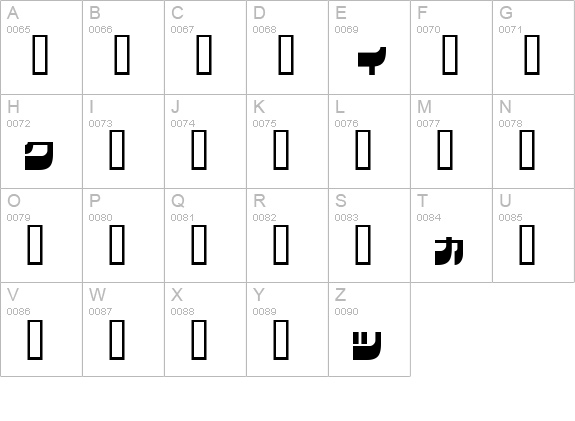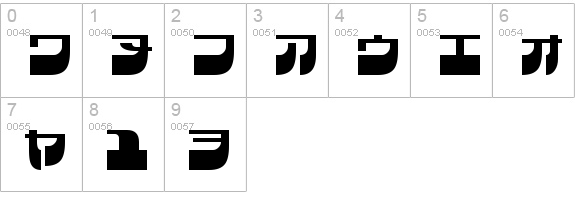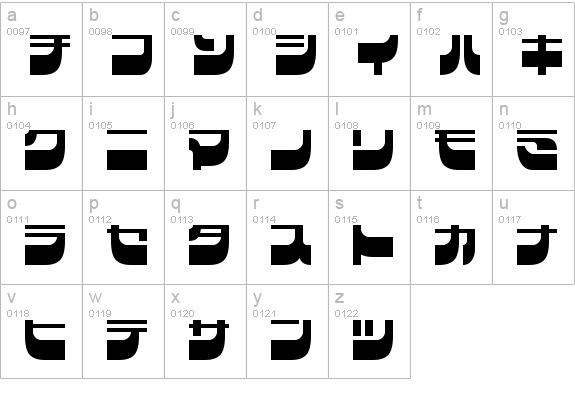
I2Raideen Font Details
Introducing I2Raideen, a stunning and versatile font that will captivate your imagination and bring your designs to life. With its unique and intricate letterforms, this font is perfect for adding a touch of elegance and sophistication to any project. I2Raideen boasts a wide range of weights and styles, allowing you to create endless combinations and achieve the perfect balance between boldness and subtlety. Whether you're designing a logo, a poster, or even a website, this font will effortlessly convey your message with its timeless appeal. But that's not all - the best part is that I2Raideen is absolutely free! Yes, you read it right. This incredible font is freely available to download at FontsMarket.com, ensuring that everyone can have access to its beauty and versatility. So why wait? Elevate your designs and make a lasting impression with I2Raideen, the font that is as stunning as it is accessible.